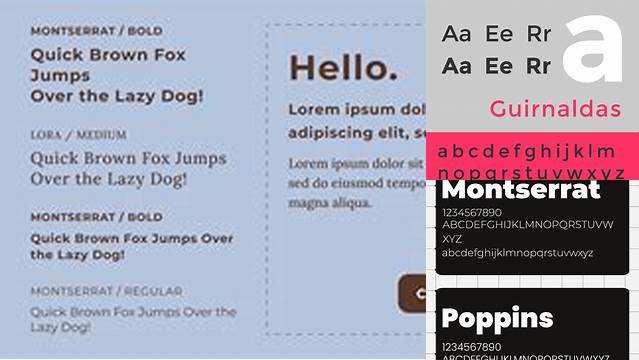
Montserrat Vs. Impact: Font Showdown & Where To Find Them
Alright, font fanatics! Let's dive headfirst into the world of typography and pit two popular font choices against each other: Montserrat and Impact. You might be asking yourself, "Why these two?" Well, they represent different ends of the font spectrum, offering unique vibes and uses. And, since the prompt also threw in the location of Montserrat, we'll be sure to cover that too, guys!
We'll explore the strengths and weaknesses of each font, consider their ideal applications, and, most importantly, tell you where you can snag them. Ready to geek out about fonts? Let's go!
Montserrat: The Modern Cityscape Font
Montserrat, born in the heart of Buenos Aires, Argentina, is a font that embodies the spirit of the city itself. It's a geometric sans-serif, meaning it's clean, modern, and lacks the small decorative strokes (serifs) found on some other fonts. This gives it a sleek, contemporary feel. Think of the sharp lines of a modern building or the efficient layout of a city map – that's the essence of Montserrat, dudes. It was designed to rescue and preserve the beauty of urban typography that appeared in the Montserrat neighborhood of Buenos Aires, which is why it carries the name. Its creator, Julieta Ulanovsky, aimed to capture the essence of the city's architecture and urban signage. It's become a go-to font for all kinds of projects.
Its versatility is one of its biggest assets, making it a great choice for everything from website headers and body text to posters and branding materials. It's easily readable at various sizes, which is super important for user experience. It's a workhorse font that looks good almost anywhere. The clean lines and simple shapes make it a perfect match for modern design trends and will work well for years to come. It can also be paired easily with other fonts, such as serif fonts for the body and Montserrat for headings. If you need a flexible, stylish font that is easy on the eyes, you can't go wrong with Montserrat.
The font also has a large family available with a variety of weights and styles, which gives designers a wide range of options to choose from. You can choose from thin to bold, with italic versions, and the design of the font allows it to be combined with other fonts to create a balanced composition. The fact that this font is free and open source is a cherry on top, so what's not to like? It's a fantastic choice for pretty much any design task that you can throw at it. You can use it in your personal projects as well as your commercial projects.
Montserrat's Character and Personality
Montserrat isn't just a collection of letters; it has a distinct personality. It's friendly, approachable, and confident without being arrogant. Because of its geometric design, it often conveys a sense of order and stability. It's a fantastic choice for brands that want to project a modern, trustworthy image. Think about companies that focus on technology, design, or even lifestyle products. Its clean lines provide visual consistency. It is also well-suited for a variety of applications. The simplicity and elegance of Montserrat allow the font to shine in both print and digital media.
This versatility has made it popular for both web and print designers. When using Montserrat, it's important to consider the context of the design. The font can easily be adapted and tweaked to fit specific needs. Because it comes in a wide array of weights and styles, this gives designers plenty of creative freedom. The font will create a visual rhythm. Designers and brands alike have incorporated it to communicate a sense of professionalism and trustworthiness in their designs. You can be sure that using Montserrat will provide the modern and stylish look that your project needs.
Where to Get Your Hands on Montserrat
Once downloaded, you can install it on your computer and use it in design software like Adobe Photoshop, Illustrator, and Canva. You can also use Montserrat in web design, so it can be implemented on any website or blog. If you need to use it for a project, Montserrat is a fantastic choice for pretty much any design task you can throw at it.
Impact: The Bold and Attention-Grabbing Font
Alright, let's switch gears and talk about Impact. Impact is the complete opposite of Montserrat in some ways. It's a strong, bold, and imposing font. It's a member of the sans-serif family, just like Montserrat, but that's where the similarities end. It was designed in the early 1960s by Geoffrey Lee at the Stephenson Blake foundry. Impact is known for its massive size and its heavy, condensed nature. You'll immediately notice its thick strokes and the fact that it takes up a lot of visual real estate. This is its signature feature, and it's what makes it so effective at grabbing attention.
Unlike Montserrat, which is designed for readability, Impact prioritizes impact (pun intended!). It's perfect for headlines, titles, and anywhere you need to make a statement. It's not ideal for body text because its boldness can be overwhelming to read for long periods. Think about those memes that use the font for captions. It is a font that is used often for a variety of projects. Its large size and the fact that it looks big on the screen make it ideal to use for a bold headline.